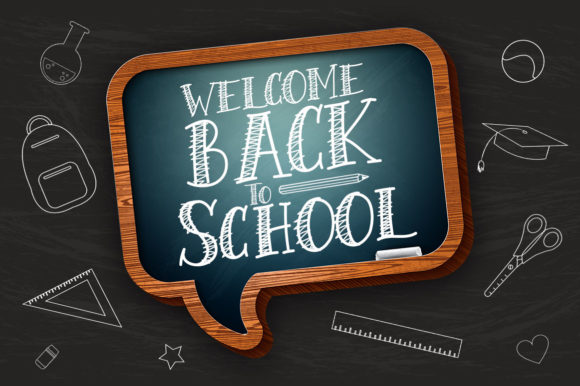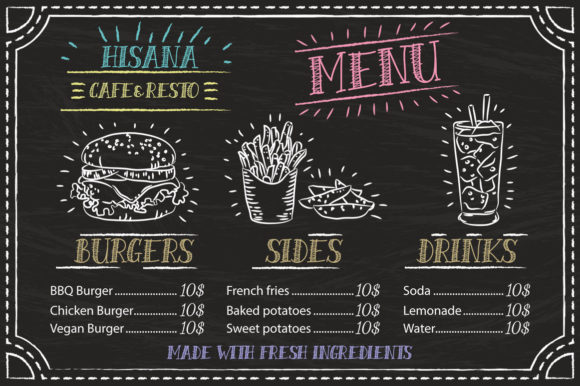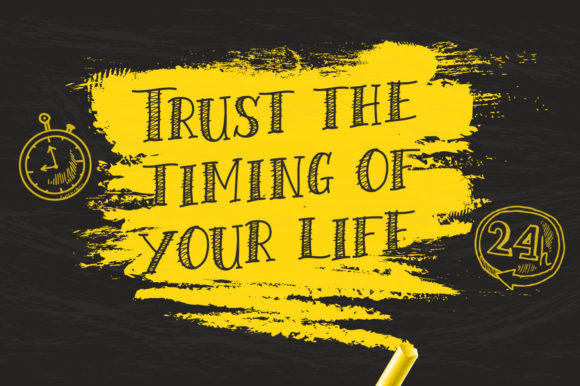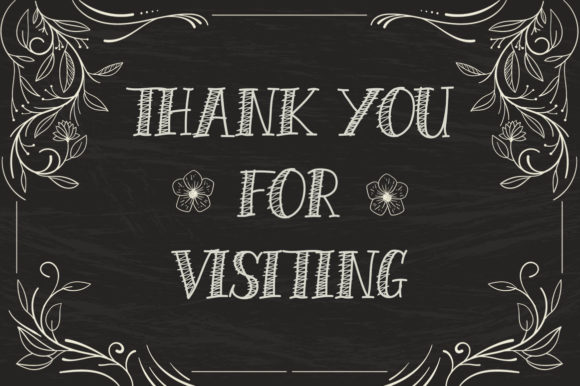
The Joy of Creating with Chalk Scratch Font
Do you remember the thrill of scribbling with chalk on the sidewalk as a child? The way the vibrant colors danced across the pavement, creating a temporary masterpiece that brought endless joy? For designers, that same sense of excitement and playfulness is now available in the Chalk Scratch Font.
Chalk Scratch is a delightful display font designed to add a touch of whimsy to any project. Its childlike playfulness makes it perfect for kids’ projects, school assignments, and even advertising campaigns targeting a younger audience. Whether you’re a seasoned designer or a hobbyist, Chalk Scratch Font is an invaluable addition to your toolkit, offering endless possibilities for creative expression.
Chalk Scratch Font Key Features
- Font Style: Handwritten, Casual, and Whimsical
- Character Set: Supports a wide range of languages, including Latin, Cyrillic, and Greek
- Unique Characteristics: Distressed, textured, and hand-drawn appearance, perfect for creating a vintage or retro look
Chalk Scratch Font Review
I recently had the chance to work with the “Chalk Scratch Font” and I have to say it’s a unique and interesting addition to any design project. Here’s my honest review:
- The distressed texture of the font gives it a lovely, handmade feel that’s perfect for designs that need a bit of character.
- The font is highly customizable, with a wide range of options for adjusting the texture, color, and size of the letters.
- The font is also quite versatile, working well for both digital and print designs, from logos to brochures.
- The font can be a bit difficult to read, especially at smaller sizes, due to the rough texture of the letters.
- The font may not be the best choice for designs that require a lot of fine typography, such as body text or small captions.
Overall, I’d say the “Chalk Scratch Font” is a great addition to any designer’s toolkit, but it’s best used in moderation. With its unique texture and high level of customization, it’s perfect for adding a bit of personality to a design project. However, it may not be the best choice for every project, and designers should be mindful of its limitations when using it.
Chalk Scratch Font: A Practical Application Guide
To get the most out of the Chalk Scratch Font, try using it in combination with other distressed or vintage textures to create a unique and eye-catching design. You can also experiment with different font sizes and colors to add emphasis and visual interest.
The Chalk Scratch Font is particularly well-suited for use in designs that require a distressed or vintage look, such as:
- Wedding invitations and decor
- Event branding and signage
- Restaurant and cafe menus
- Marketing materials and promotional items